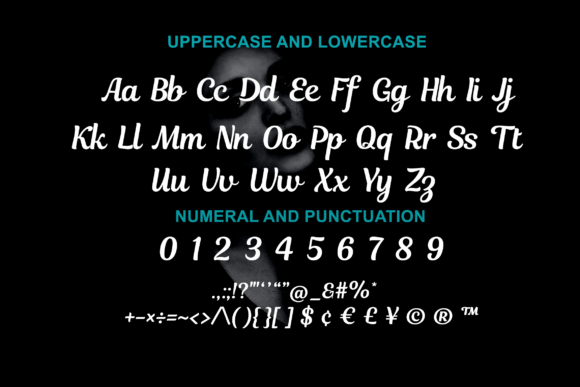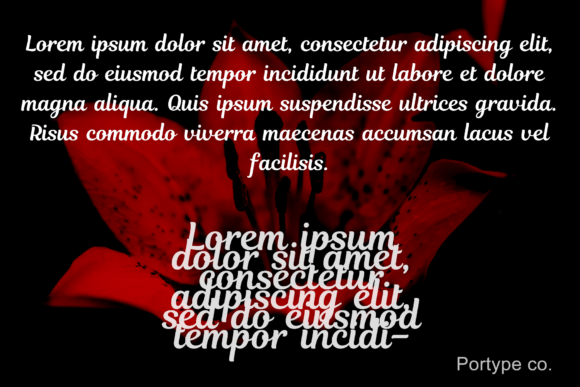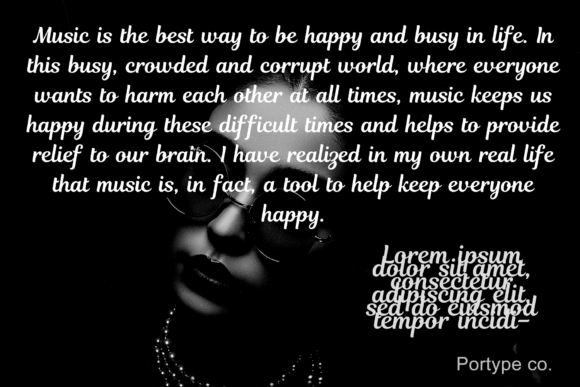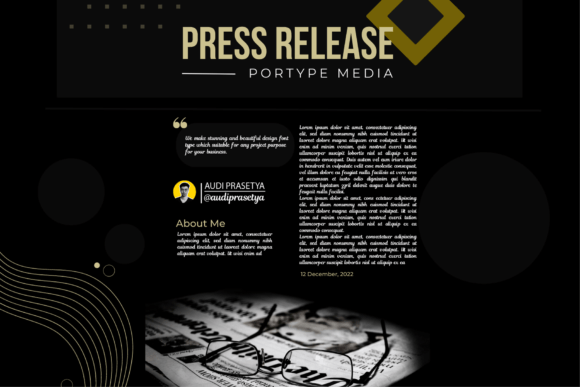
Elegantia Font: Elevate Your Designs with Timeless Sophistication
In the world of typography, few fonts capture the essence of elegance and sophistication as effortlessly as the Elegantia font. This beautifully designed typeface is a masterclass in refinement, with smooth, flowing lines that convey a sense of luxury and poise. Whether you’re a designer, crafter, or simply someone who appreciates the art of fine typography, the Elegantia font is sure to leave a lasting impression.
The Art of Elegance: A Closer Look at Elegantia
The Elegantia font is a testament to the power of meticulous design. Each character is carefully crafted, with delicate curves and fine serifs that come together to create a cohesive and visually stunning appearance. The letters seem to flow effortlessly across the page, imbuing any design with a sense of movement and energy. Whether you’re working on a wedding invitation, a high-end fashion brand, or a luxury product package, the Elegantia font is the perfect choice for adding a touch of sophistication.
Timeless Beauty for Timeless Designs
One of the standout features of the Elegantia font is its timeless beauty. Unlike trendy fonts that quickly go out of style, Elegantia’s classic design ensures that it will remain relevant for years to come. Its elegant lines and refined features evoke a sense of nostalgia, while still feeling modern and fresh. This versatility makes it an excellent choice for designers and crafters who want to create designs that will stand the test of time.
Versatility and Legibility: The Perfect Combination
The Elegantia font is not only beautiful, but also incredibly versatile. Its clear and legible design makes it suitable for use in both large and small print sizes, from billboards to business cards. This flexibility ensures that you can use the font across a wide range of applications, without worrying about it losing impact or clarity. Whether you’re designing a logo, a brochure, or a website, the Elegantia font is the perfect choice for adding a touch of elegance and sophistication.
Perfect for Elegant Designs
So, what types of designs is the Elegantia font best suited for? The answer is simple: any design that requires a touch of sophistication and elegance. Here are a few ideas to get you started:
- Wedding invitations and stationery: Add a touch of romance and luxury to your wedding designs with the Elegantia font.
- High-end fashion branding: Elevate your fashion brand with the Elegantia font’s sophisticated and refined design.
- Luxury product packaging: Make a statement with the Elegantia font on your product packaging, and convey a sense of high-end quality.
- Event invitations: Use the Elegantia font to create stunning event invitations that set the tone for a sophisticated and elegant occasion.
Why Choose the Elegantia Font?
With so many fonts to choose from, why should you choose the Elegantia font for your next design project? Here are just a few reasons:
- Unique and sophisticated design: The Elegantia font is a one-of-a-kind typeface that will set your designs apart from the crowd.
- Timeless beauty: The font’s classic design ensures that it will remain relevant for years to come.
- Versatility and legibility: The Elegantia font is suitable for use in a wide range of applications, from large to small print sizes.
In conclusion, the Elegantia font is a beautifully designed typeface that exudes elegance and sophistication. Its timeless beauty, versatility, and legibility make it the perfect choice for designers and crafters who want to add a touch of luxury to their designs. Whether you’re working on a wedding invitation, a high-end fashion brand, or a luxury product package, the Elegantia font is sure to leave a lasting impression. So why wait? Try the Elegantia font today, and elevate your designs to new heights of sophistication and elegance.